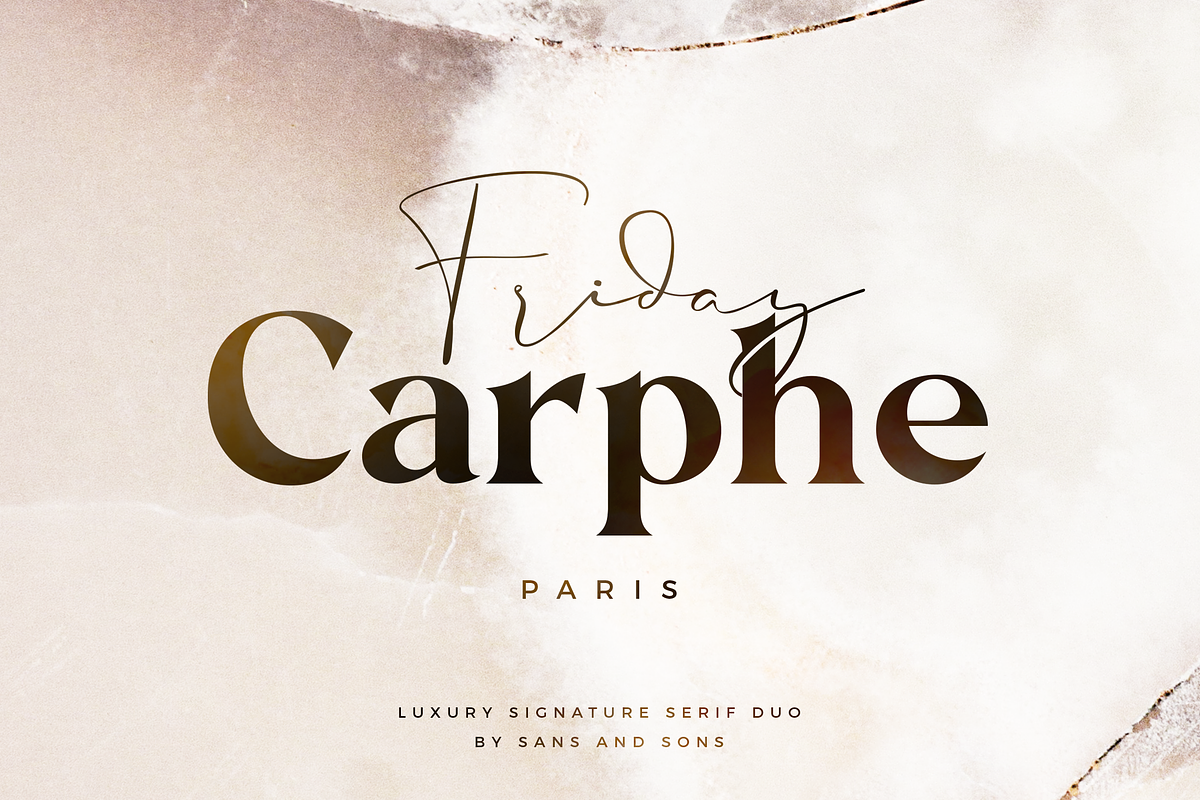
Carphe | Modern Luxury Font Free Download
You must purchase this font for commercial use. However, you can download Carphe | Modern Luxury Font Free Download for testing purposes. Carphe is a sleek and refined serif typeface designed to exude elegance, sophistication, and modern luxury. Perfect for premium branding, fashion editorials, upscale packaging, beauty products, and elegant website headers, Carphe elevates any project with its graceful presence.
Featuring clean lines, stylish contrast, and finely balanced curves, Carphe brings a timeless yet contemporary aesthetic to your typography. It includes elegant ligatures and alternates, giving you the flexibility to create custom layouts that feel exclusive and refined. Whether you’re crafting a high-end logo or a chic magazine spread, Carphe | Modern Luxury Font Free Download gives you the freedom to explore its high-fashion vibe before committing to a commercial license.